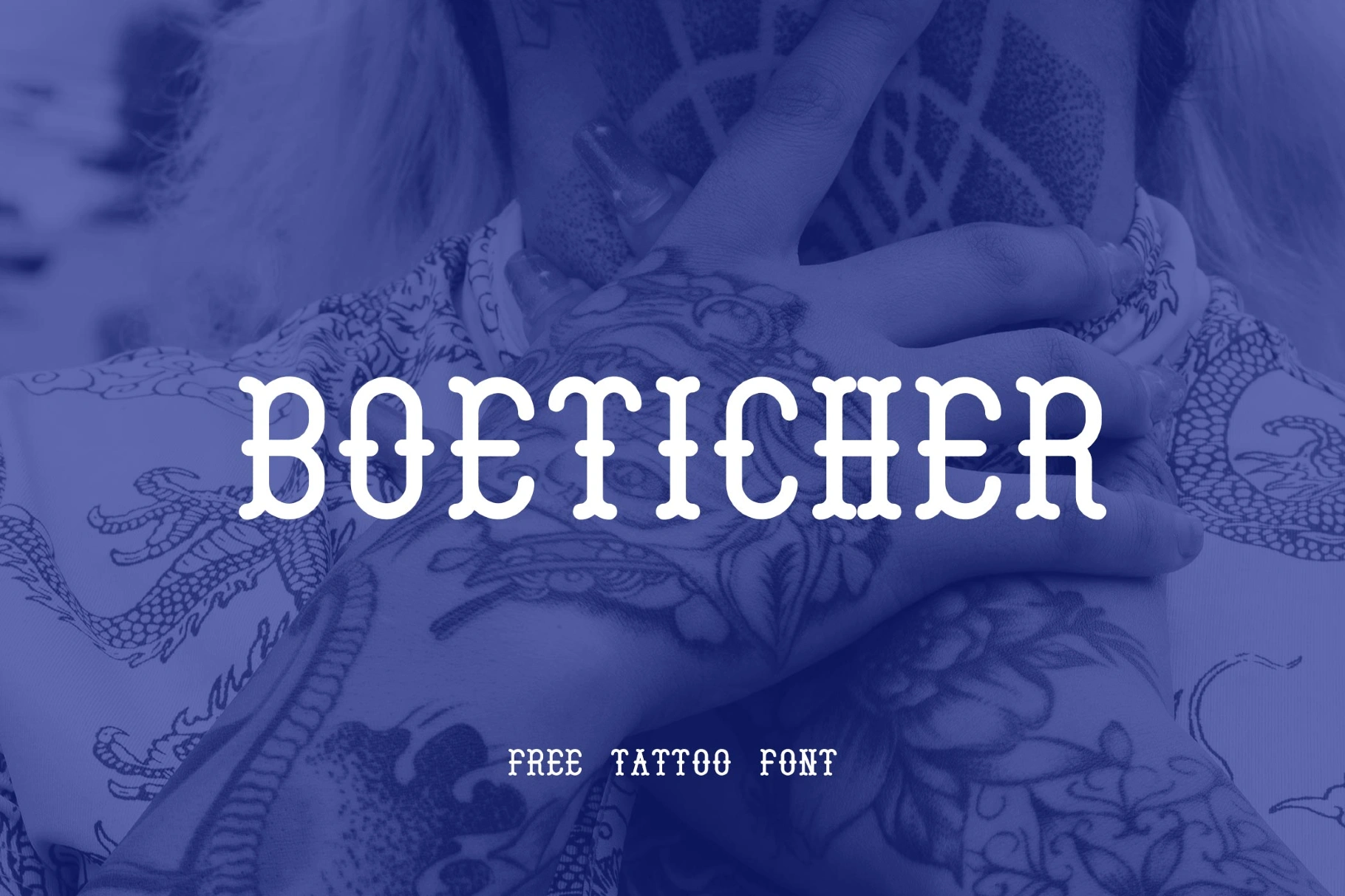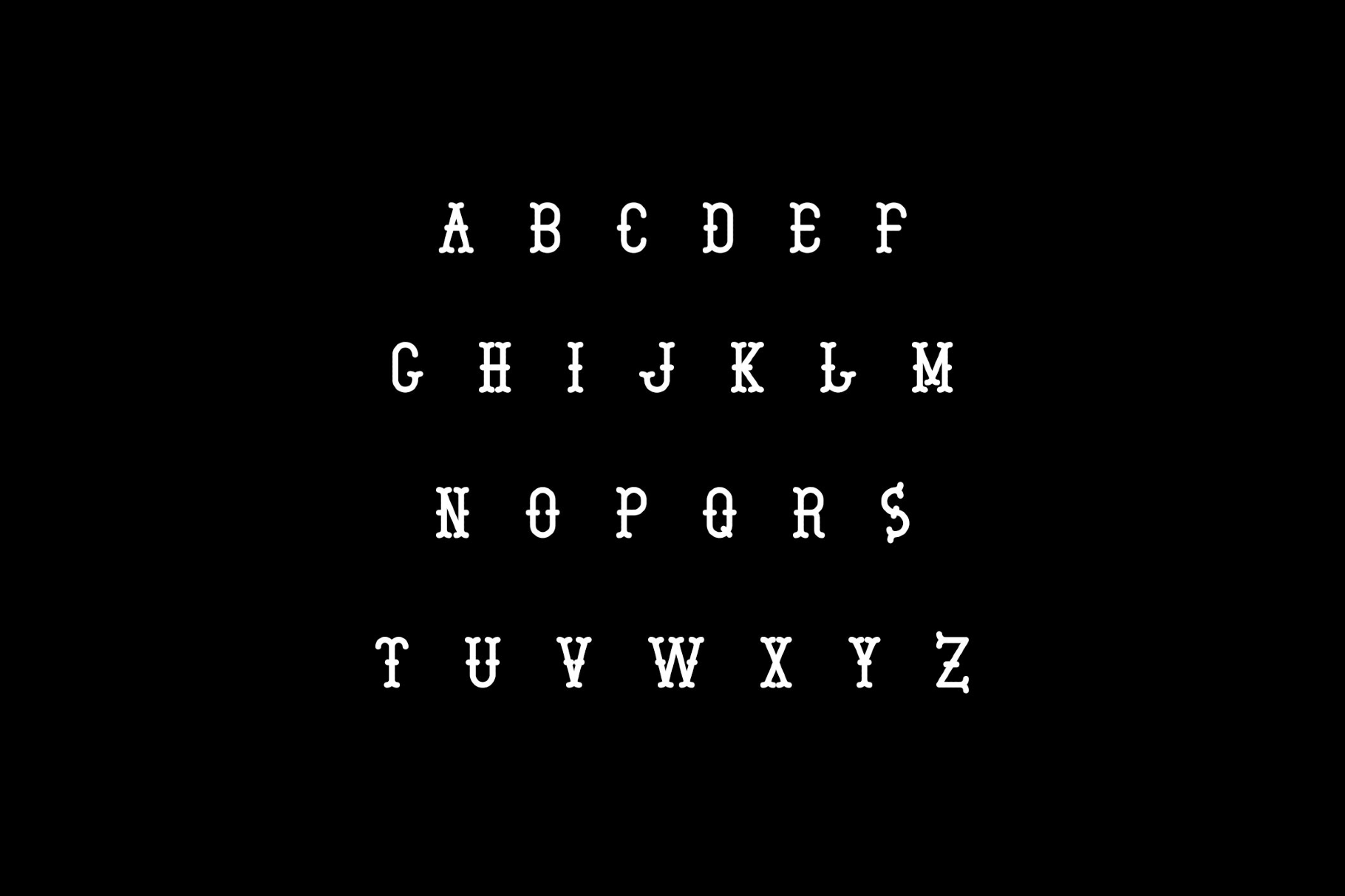
Boeticher Modern Sailor Font
Boeticher-Roman
Boeticher is nautically-minded display with a vintage face. Sturdy verticals, trimmed curves, and small ornamental cues echo sailor tattoos and dockside signpainting. It's perfectly tailored for coastal café logos, rum or gin labels, tattoo-parlor signage, maritime festival posters, seaside apparel tags, tiki bar menus, retro postcard headings, surf-shop windows, and themed wedding suites.